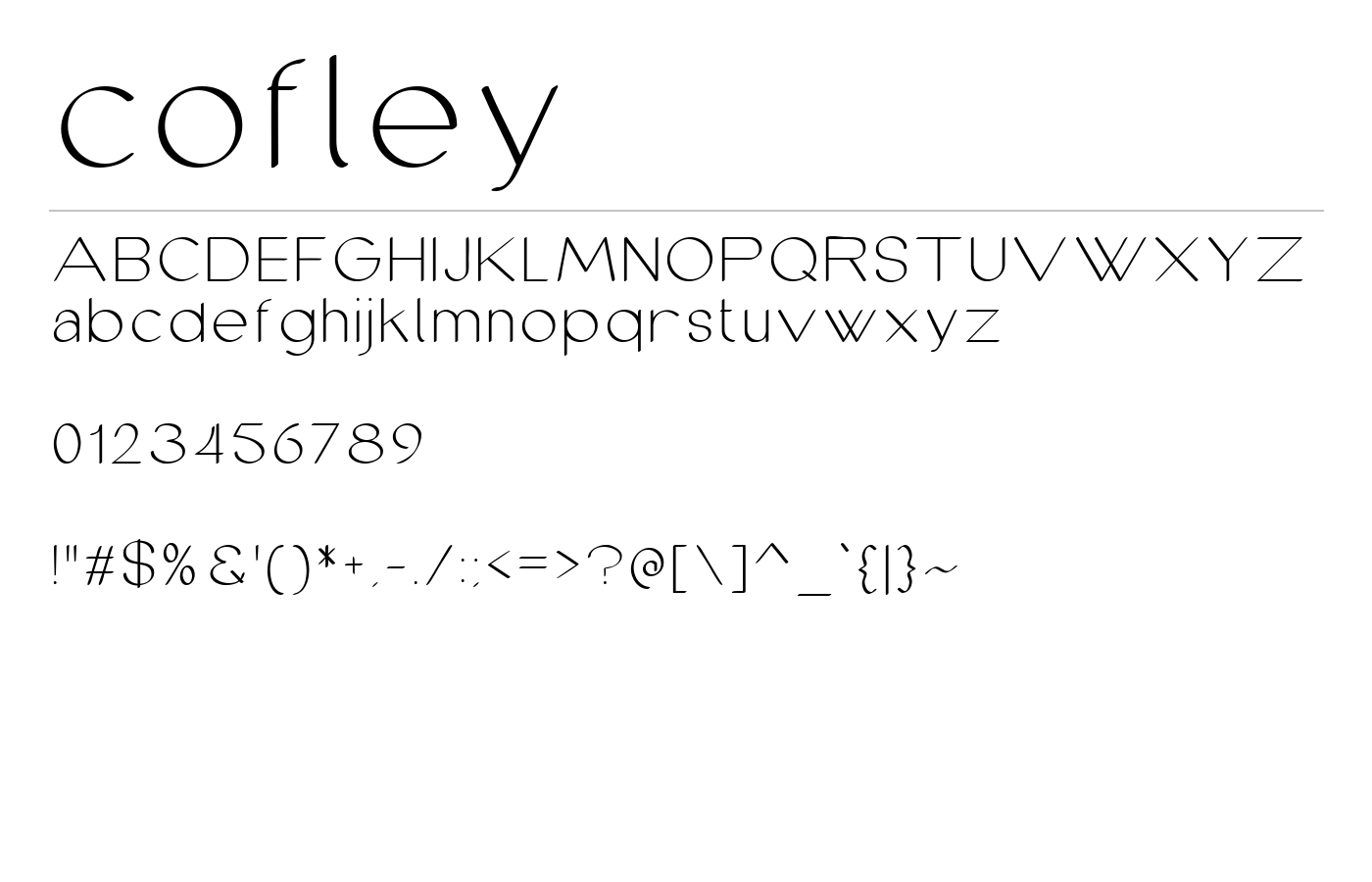
Cofley is a delicate and elegant sans serif font featuring a light weight and a narrow, graceful structure with high contrast between thin and slightly thicker strokes. Its refined, geometric letterforms, combined with subtle calligraphic touches, create a sophisticated and modern feel ideal for luxury branding, editorial headlines, and stylish packaging where a sleek yet distinctive look is desired. This font’s airy spacing and distinct character shapes make it perfect for upscale and contemporary design projects seeking a clean and artistic expression.
Cofley Font
About Cofley Font